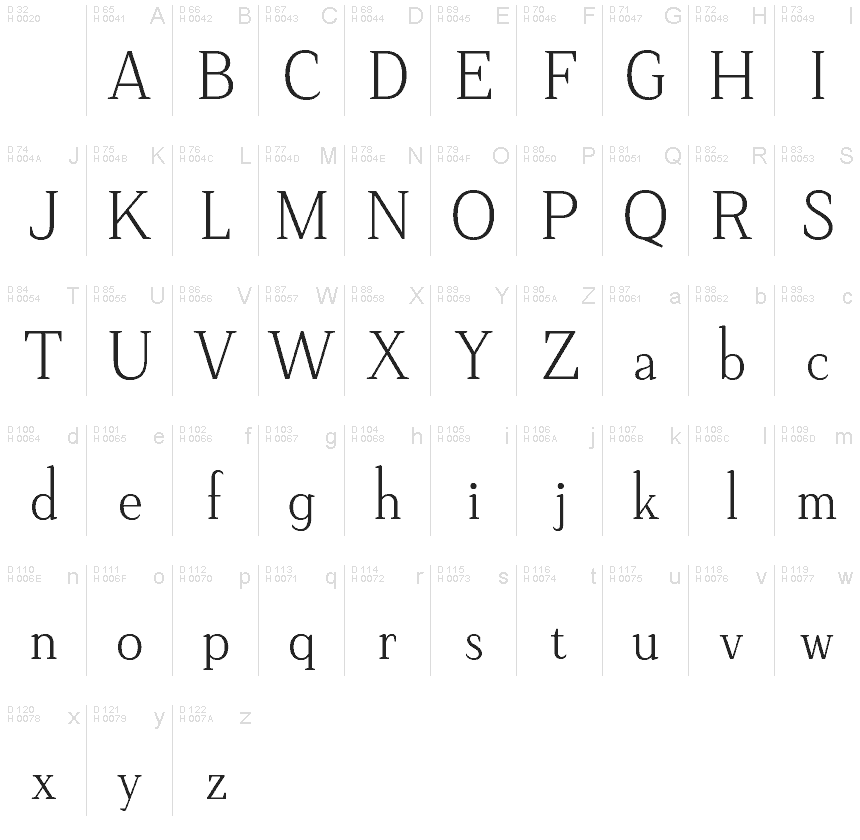
Vellany Demo Regular
Vellany font by Craft Supply Co is a light serif font that features an elegant sophisticated design for classic and modern audiences. It has the softest curvatures around its edges thus exuding a uniquely refined aesthetic. With unmistakable class, this typeface brilliantly presents visualized ideas in a delicate and minimalistic fashion.
Among the best uses of Vellany are logo designs for luxurious brands, packaging designs, business cards, branding, or any printed matters. Try it as well on invitations such as wedding or event invitations; they will have an exclusive touch that is rarely found elsewhere.